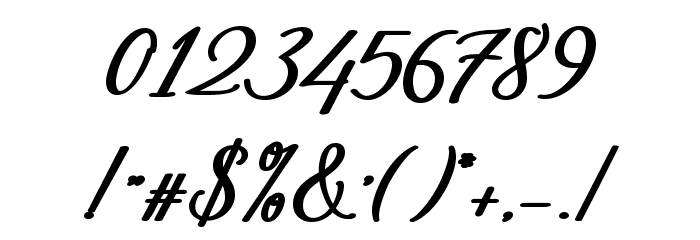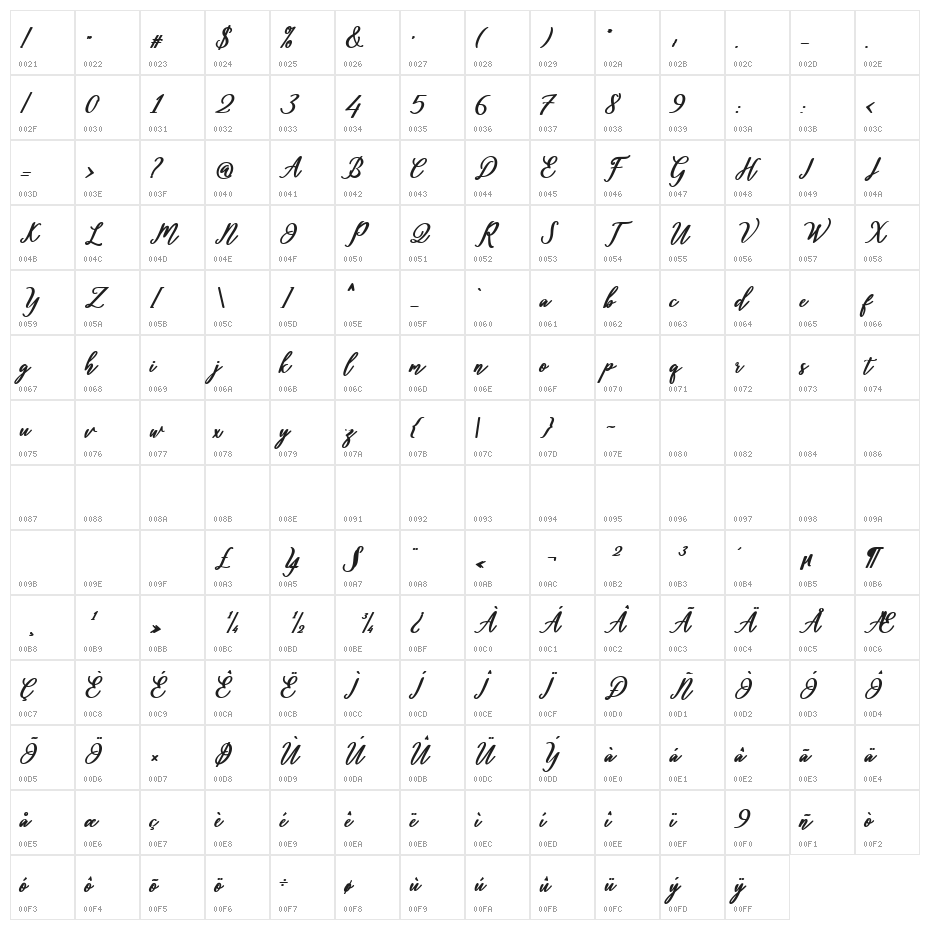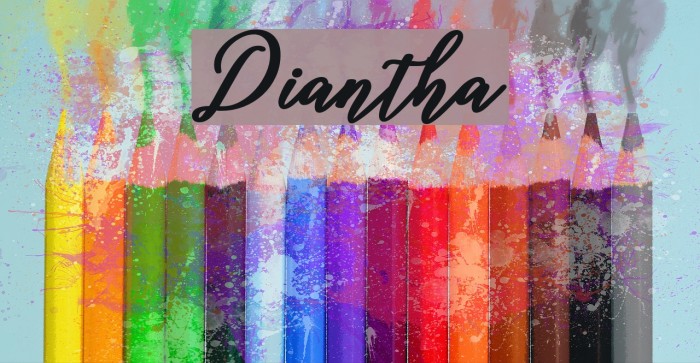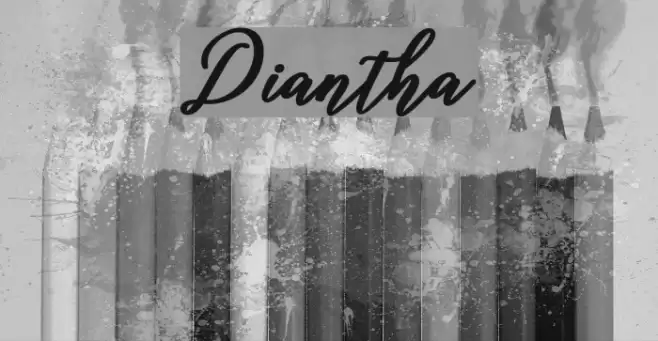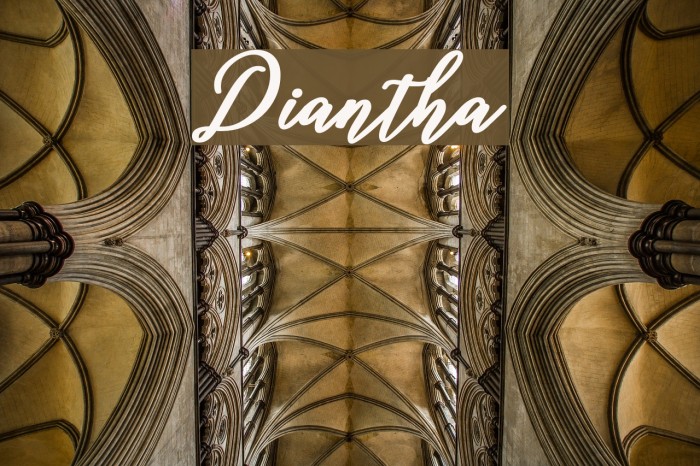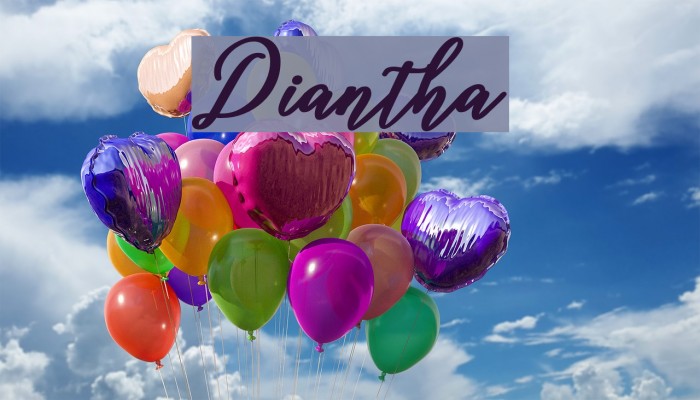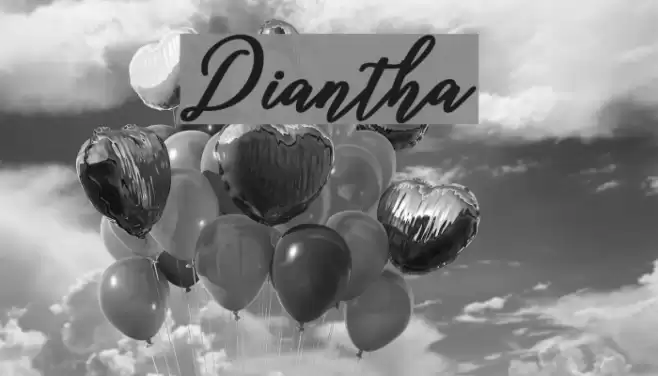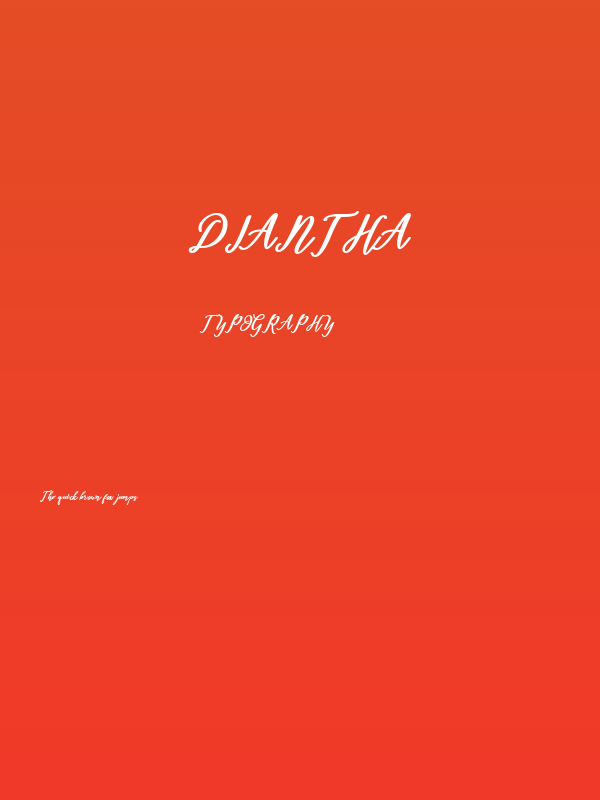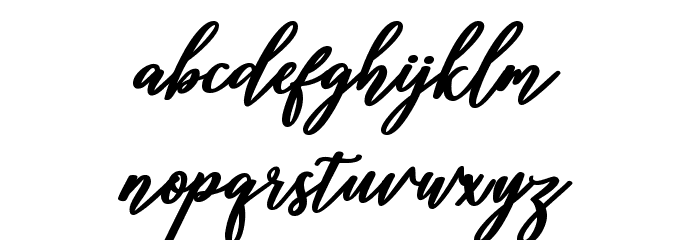
Diantha Font
Diantha Description
This font features an elegant script style with flowing, cursive letters that convey a sense of sophistication and grace. The uppercase letters are slightly more ornate, with sweeping curves and loops that add a decorative touch. The lowercase letters maintain a consistent style, with smooth connections between characters, enhancing readability while retaining a handwritten feel. The numerals are clear and distinct, matching the overall aesthetic of the font. Special characters are well-integrated, maintaining the font's cohesive look. This font is ideal for projects that require a personal, yet polished touch.